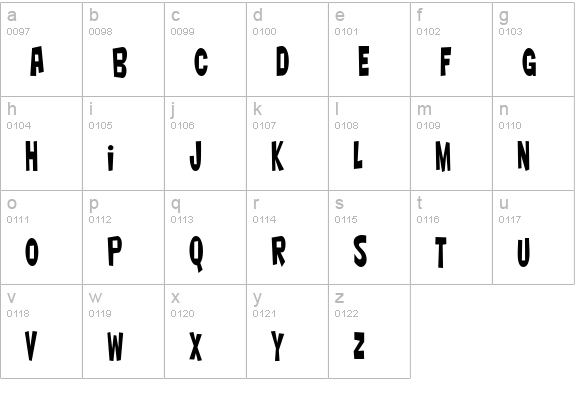
Nightclub BTN UltraCn Font Details
Nightclub BTN UltraCn font is a sleek and stylish typeface that exudes a sense of energy and sophistication, making it perfect for creating eye-catching designs. With its ultra condensed letterforms and bold appearance, this font is sure to make a statement in any project. Whether you're designing a poster, logo, or website, Nightclub BTN UltraCn will add a touch of flair and modernity to your work. And the best part? Nightclub BTN UltraCn font is available for free download at FontsMarket.com! So you can easily enhance your designs with this striking font without breaking the bank. Don't miss out on the opportunity to elevate your projects with the bold and dynamic Nightclub BTN UltraCn font - download it today and let your creativity shine!